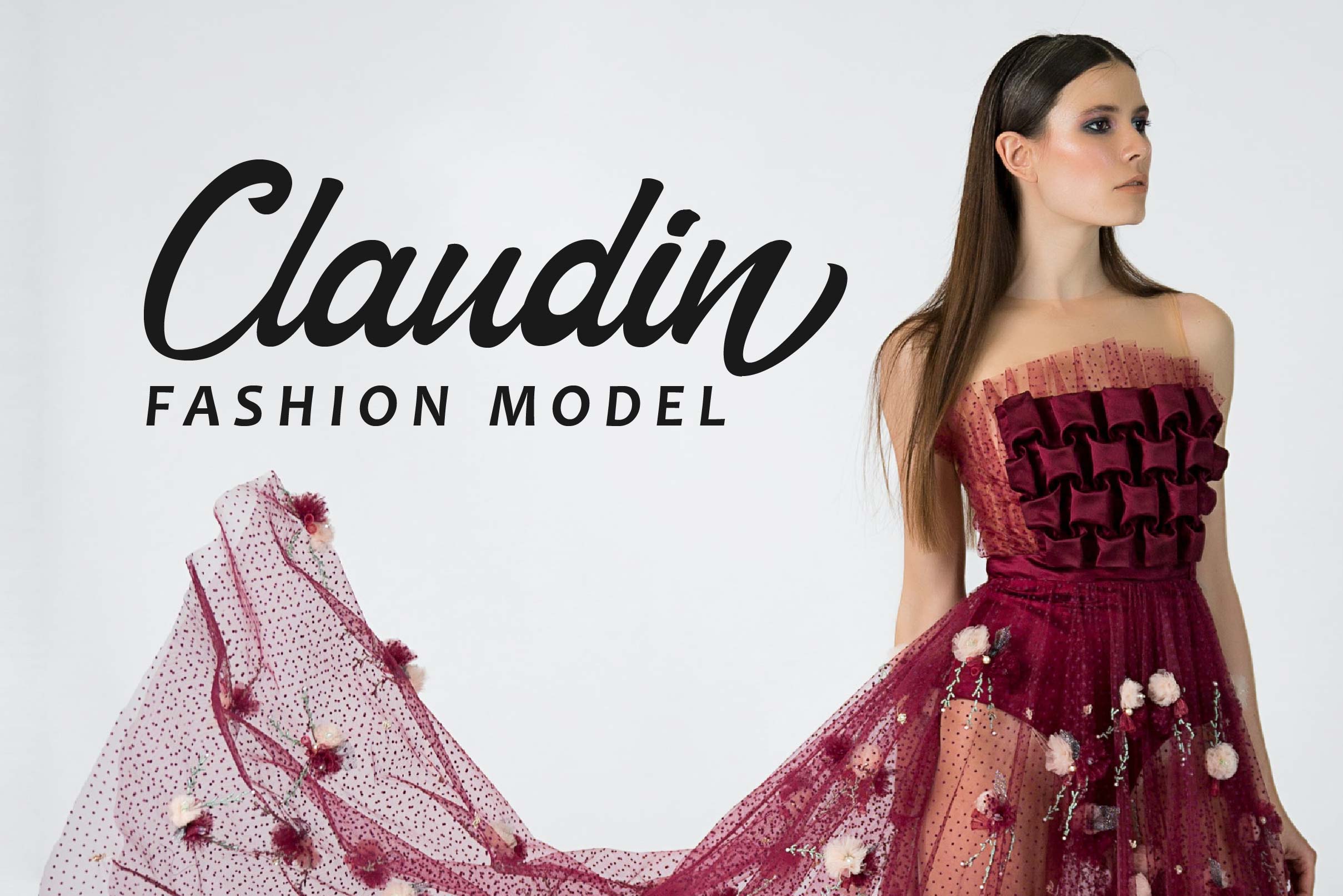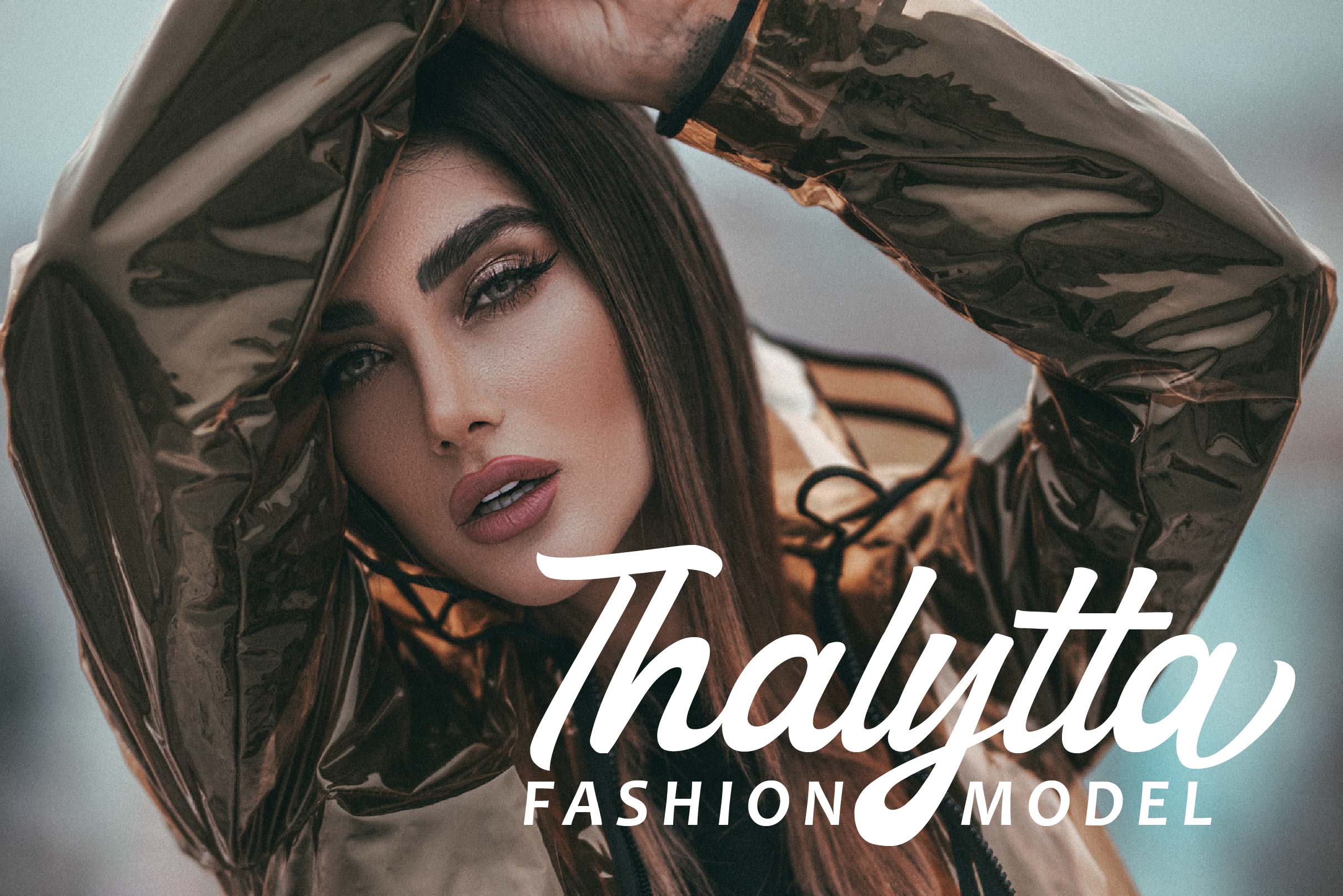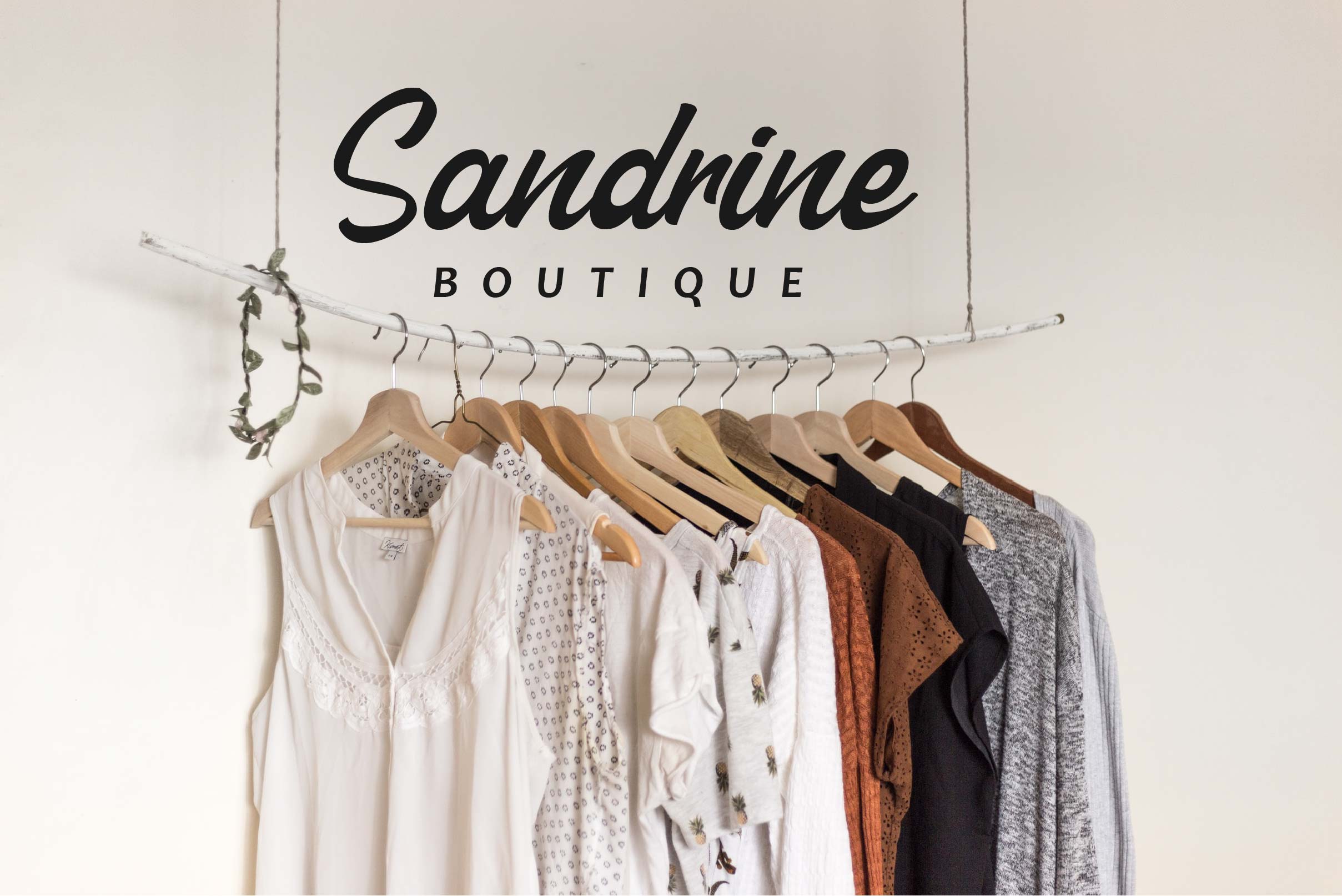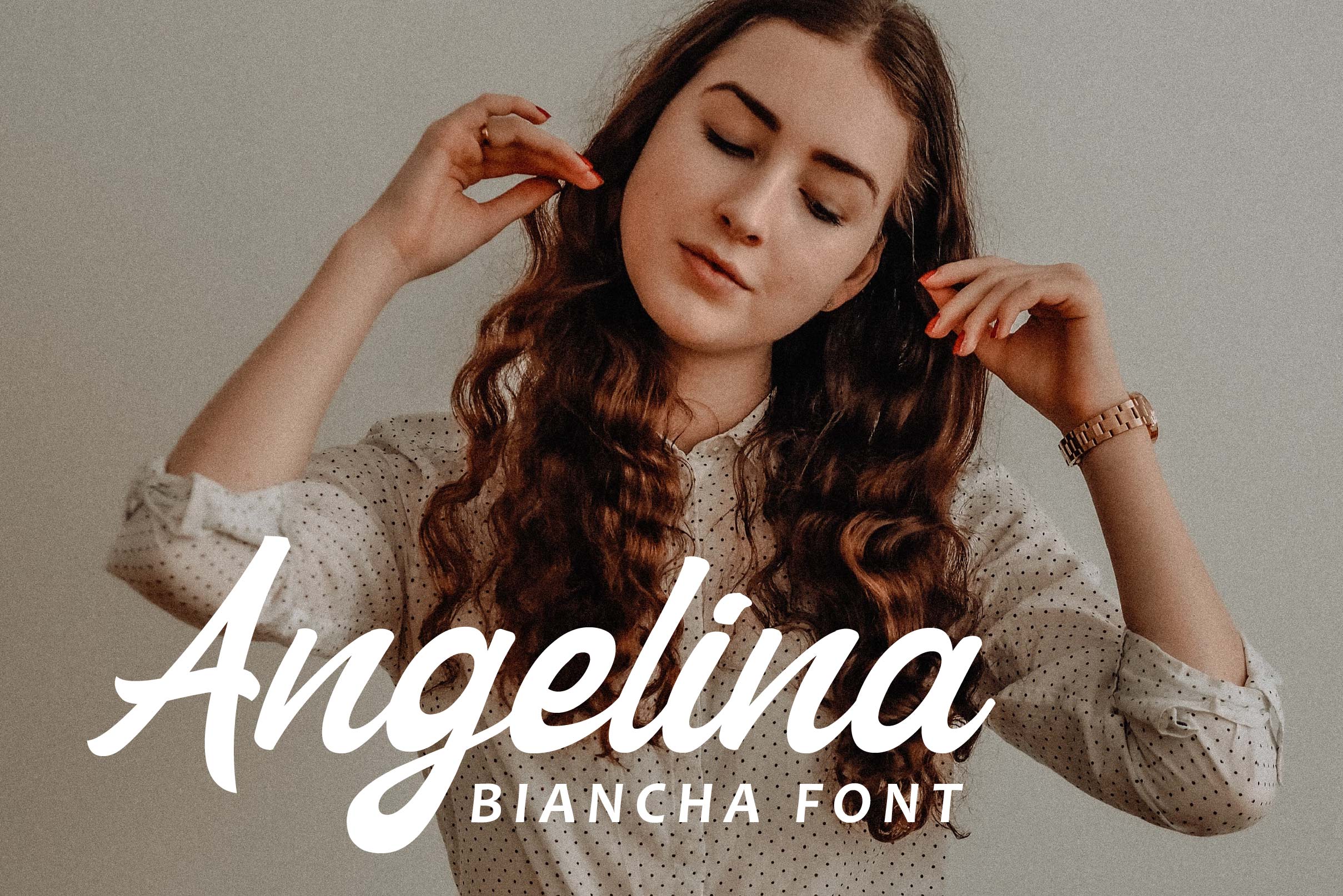
Biancha Font
Biancha Script Font is a beautiful handwritten font, expertly designed to become a true favorite. Suitable for a wide variety of designs due to its sleek and elegant style, Biancha will become your favorite font, whatever the occasion!
– Uppercase, Lowercase, Numeral & Punctuation
– Alternate Letters, Ligature & Swash/Tail